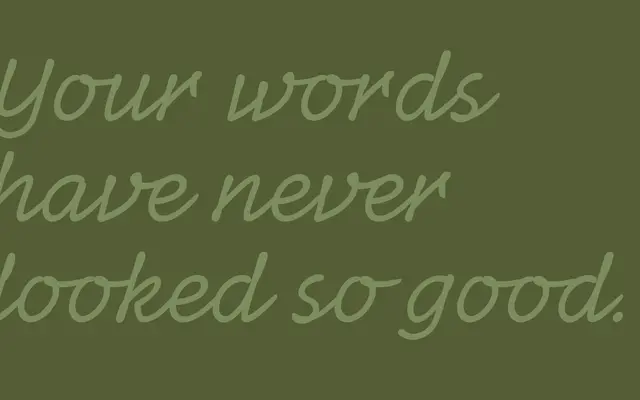
Radcliffe Hand
Zetafonts · Cosimo Lorenzo Pancini, Giulia Ursenna Dorati · 2019
A hand-traced revival of Zetafonts' Radcliffe family, reinterpreting its humanist skeleton as calligraphic letterforms across four weights plus a connected Script variant.
Designed by Cosimo Lorenzo Pancini with Giulia Ursenna Dorati, the family sits between type and handwriting, with each glyph individually traced from the original Radcliffe design to preserve legibility while gaining expressive, calligraphic character. The four upright and italic weights suit both text and display use, while the connected cursive Radcliffe Hand Script can be paired with the broader Radcliffe family for layered handwriting effects. Over 400 glyphs cover 213 languages, with OpenType features including discretionary ligatures for a set of hand-drawn arrows.
Each glyph is a hand-traced interpretation of the Radcliffe serif family, giving it calligraphic, handwriting qualities. The connected cursive Script variant confirms classification as a script/handwritten typeface rather than a conventional serif.